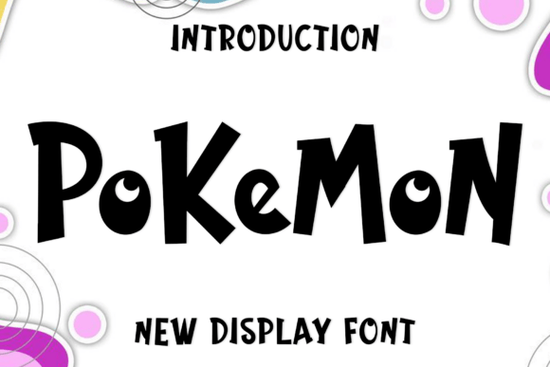
If you're looking for a friendly, approachable typeface that feels like a smile in font form, the Pokemon Font is a thoughtful choice especially if your work leans into playful, handmade, or lighthearted themes. It’s not a licensed Pokémon brand font (so no official Poké Ball logos or character names), but its round, bouncy letterforms and hand-drawn texture capture that same cheerful energy. Designers and crafters often reach for it when they want something warm without being childish think birthday invites, sticker sheets, kids’ room decor, or social media posts for small creative businesses.
Small business owners selling printable planners or greeting cards appreciate how easily Pokemon Font reads at small sizes while still feeling personal. Print-on-demand sellers use it on mugs, tote bags, and wall art where approachability matters more than sharp formality. Crafters building SVG bundles for Cricut or Silhouette often pair it with simple line art because its soft edges don’t compete visually. Even educators making classroom posters or reward charts find it helps soften the tone less “instruction,” more “let’s try this together.”
It works well alongside other relaxed display fonts like the breezy charm of the Beautiful Lashes Font, or the retro bounce of the Retro Groovy Font. If you’re layering text over photos or textured backgrounds, its open spacing and consistent weight help it hold up without needing heavy outlines or shadows.
The Pokemon Font comes with standard PUA (Private Use Area) encoding. That means special characters like alternate lowercase ‘a’ or ‘g’, hearts, stars, or little doodle-style flourishes show up reliably in apps like Adobe Photoshop, Illustrator, Canva, CorelDRAW, and even newer web-based tools. You won’t need to hunt through glyph panels or install extra plugins. Just type, and many extras appear automatically as ligatures or stylistic alternates depending on your software.
Think of Pokemon Font as your go-to for moments when warmth matters more than precision. It’s not meant for legal disclaimers or technical manuals. But for things like:
- Handmade shop banners (“Open for Summer Orders!”)
- Instagram story text overlays (“Yes, we ship internationally 🌍”)
- Printable baby shower games or cupcake toppers
- Sticker packs with encouraging phrases (“You’ve got this!”)
- SVG files for vinyl cutting especially on softer materials like fabric or kraft paper
You’ll likely reach for it alongside other expressive options like the gentle curves of the Heart Font for romantic projects, or the weathered texture of the Distressed Creative Font when you want contrast in the same layout. For holiday-specific work, it pairs nicely with the joyful sparkle of the Christmas Radiance Font one brings cheer, the other brings shimmer.
It’s worth noting that while Pokemon Font has personality, it avoids being overly busy. There are no exaggerated swashes or chaotic variations just consistent rhythm and generous x-height. That makes it surprisingly versatile for bilingual layouts too, especially with Latin-based languages.